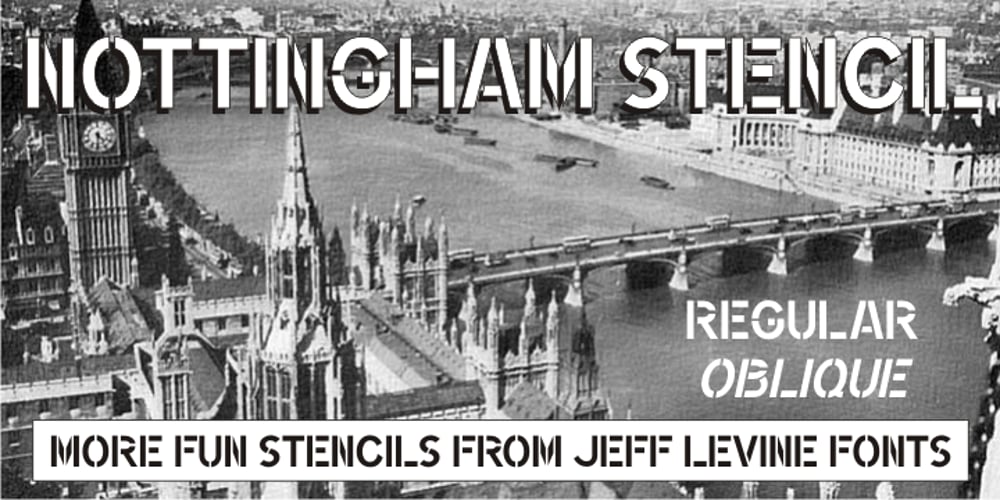
Nottingham Stencil JNL
Nottingham Stencil JNL font
Nottingham Stencil JNL Font Family was designed by Jeff Levine and published by Jeff Levine. Nottingham Stencil JNL contains 2 styles and family package options. Nottingham Stencil JNL and its companion oblique version are the third set of fonts modeled from vintage lettering stencils made in England. These designs join British Stencil JNL and Trafalgar Stencil JNL in Jeff Levine’s large library of stencil-themed typefaces.